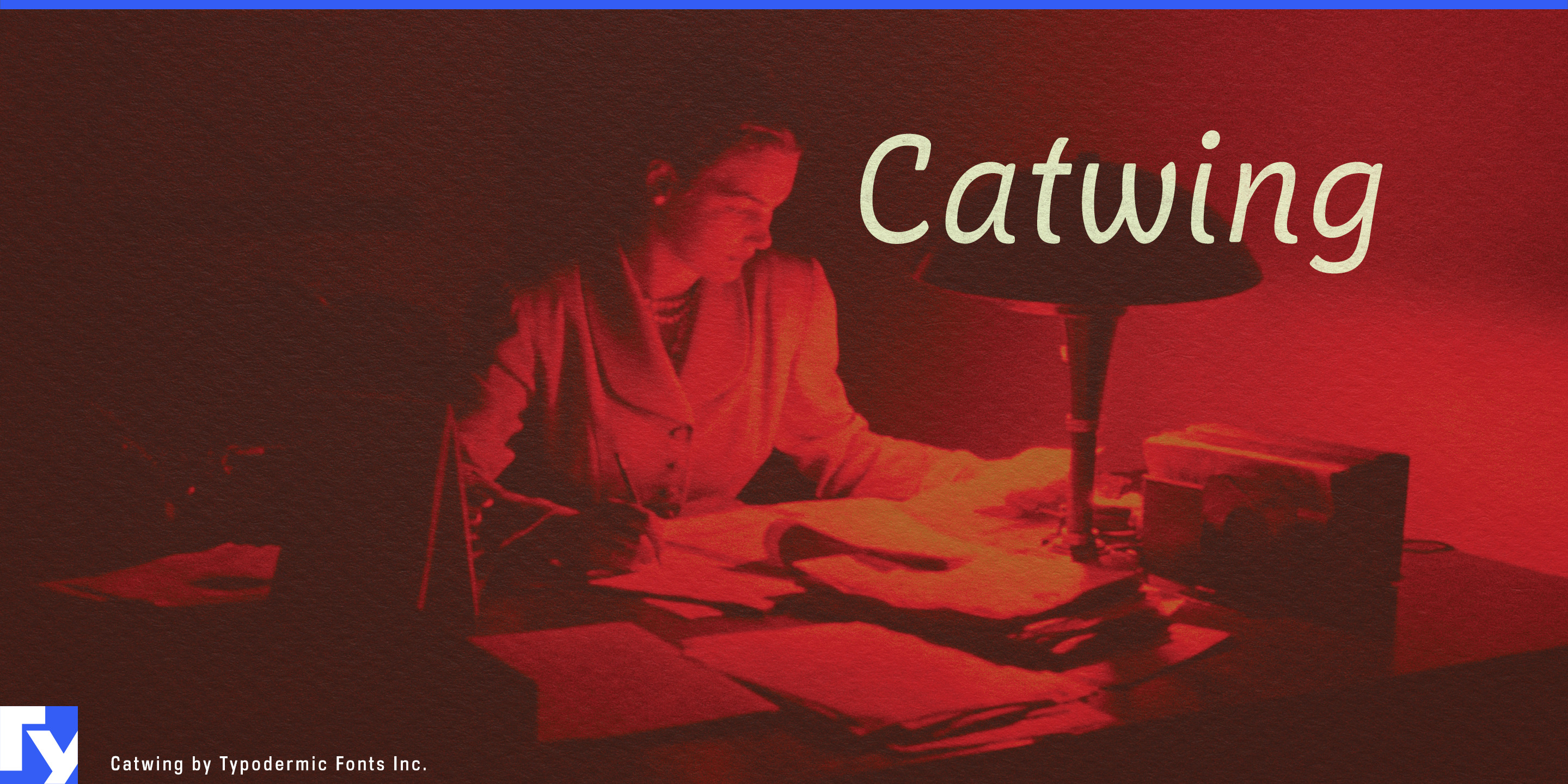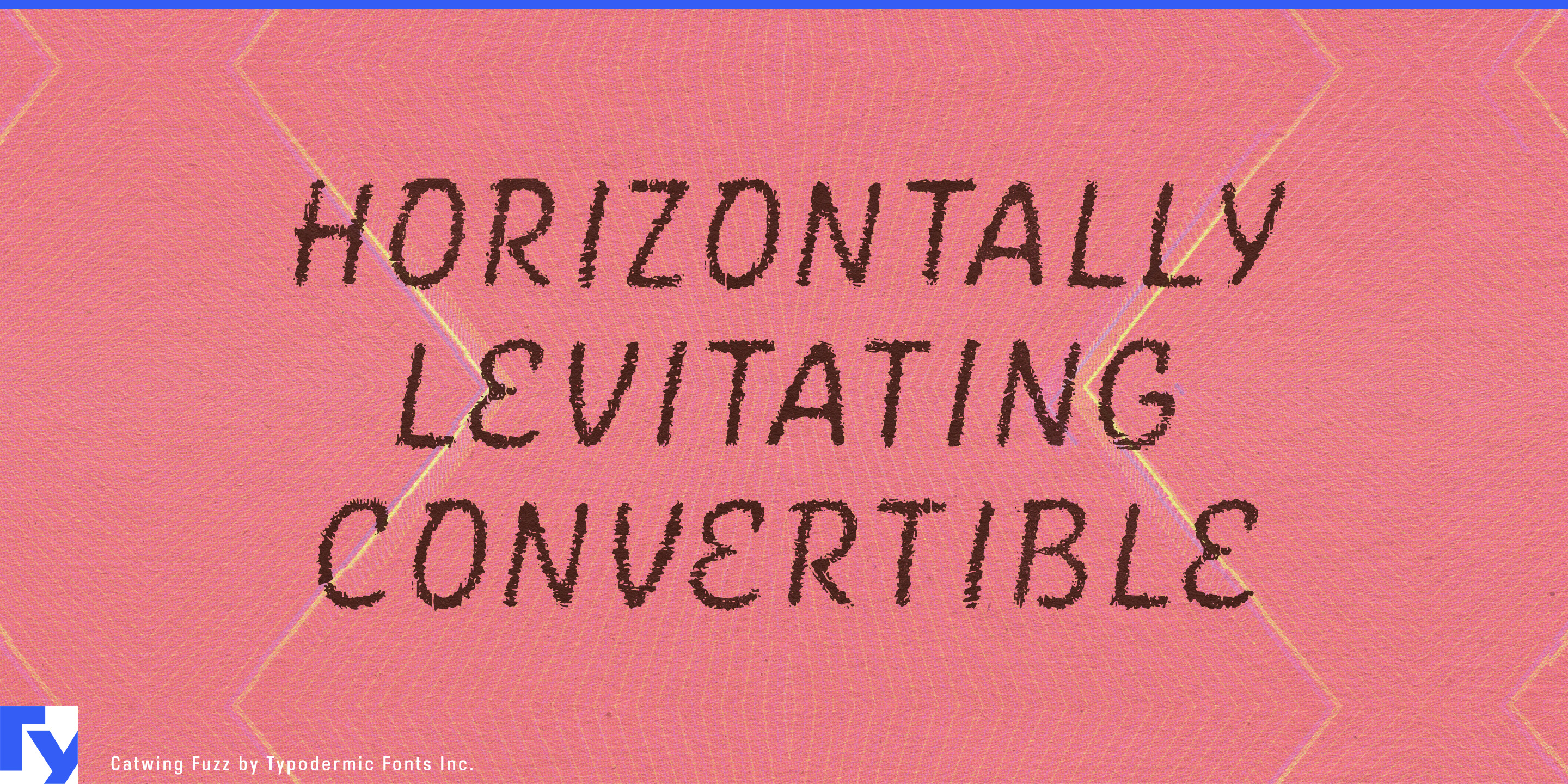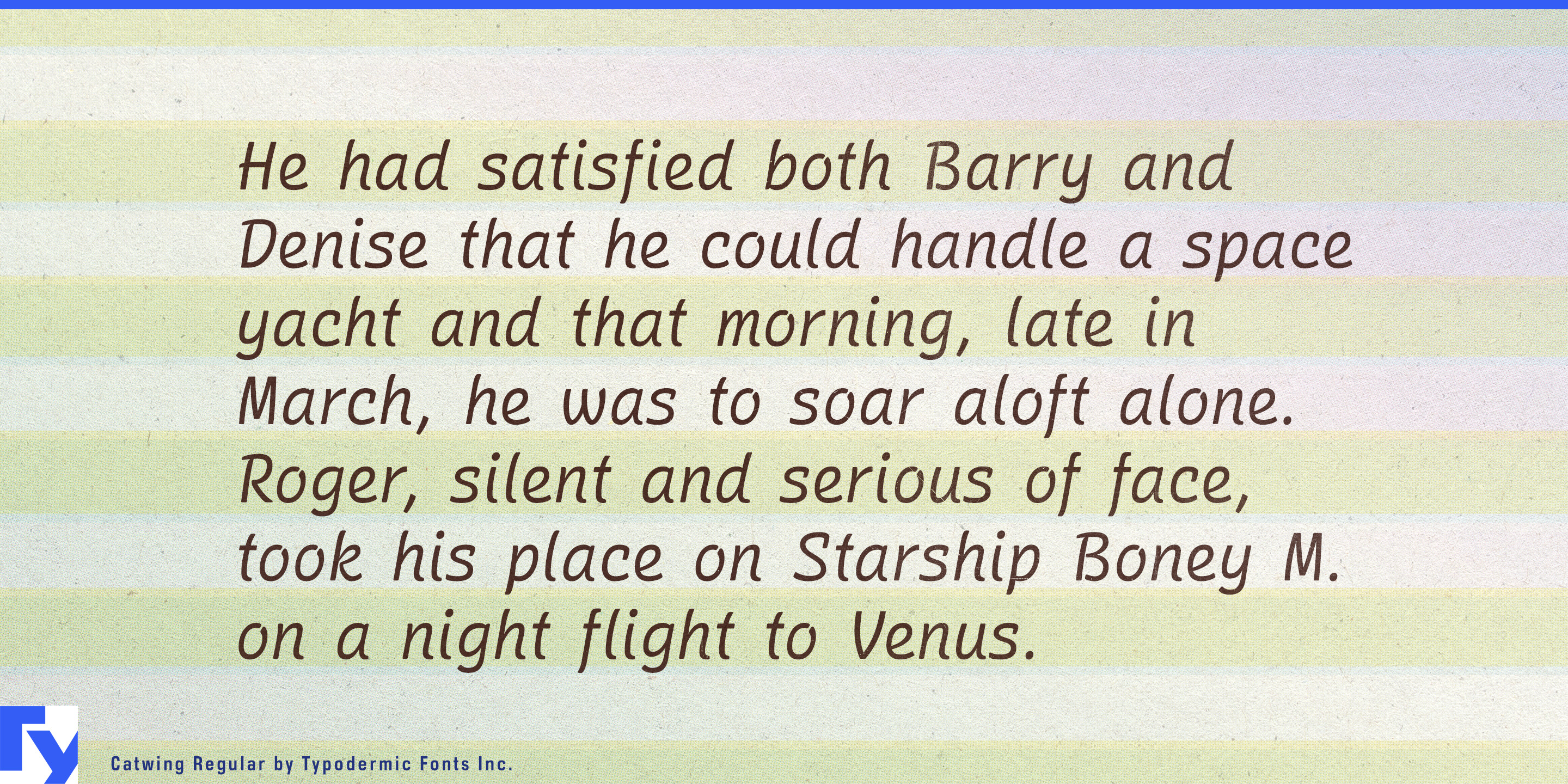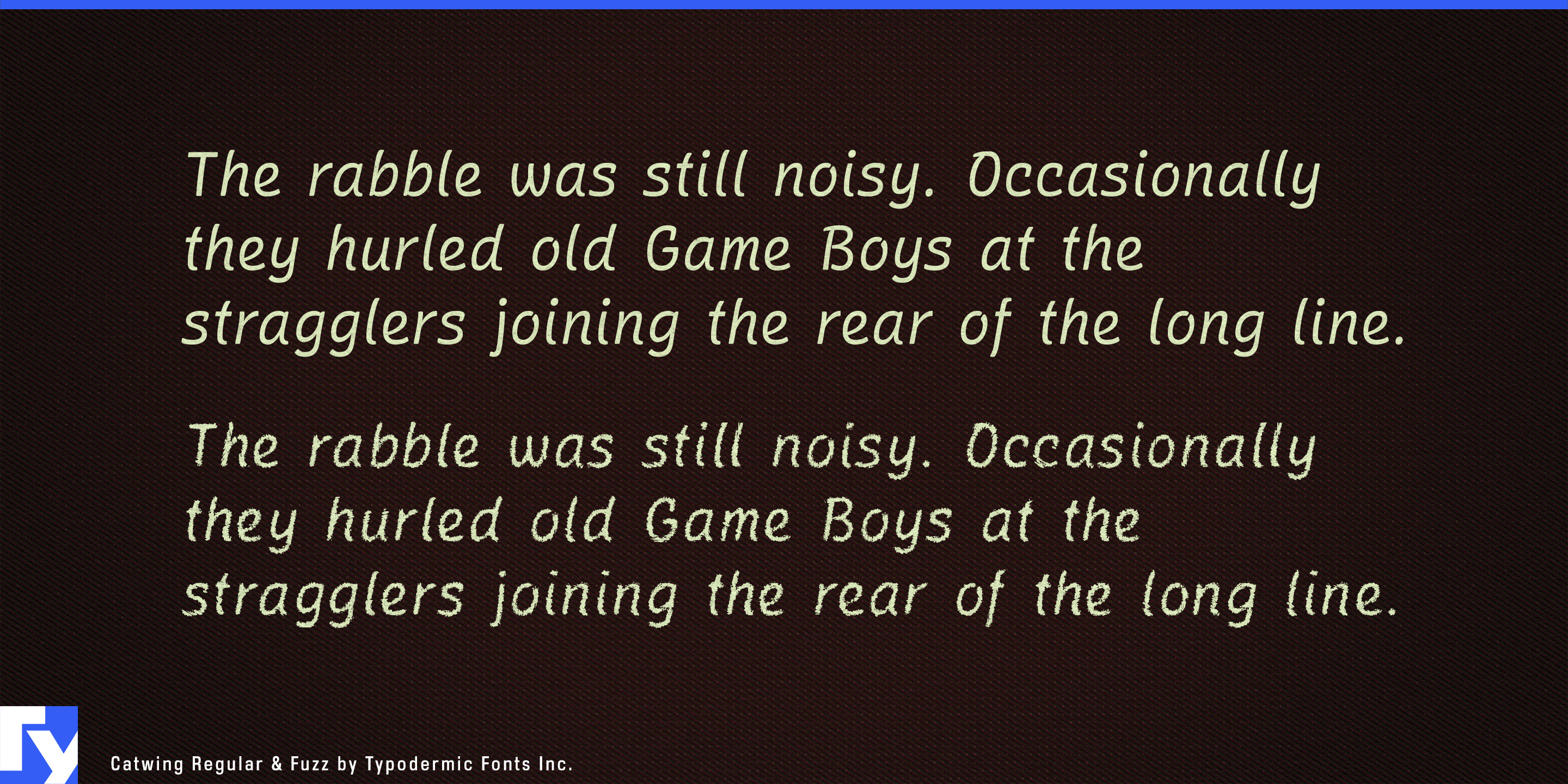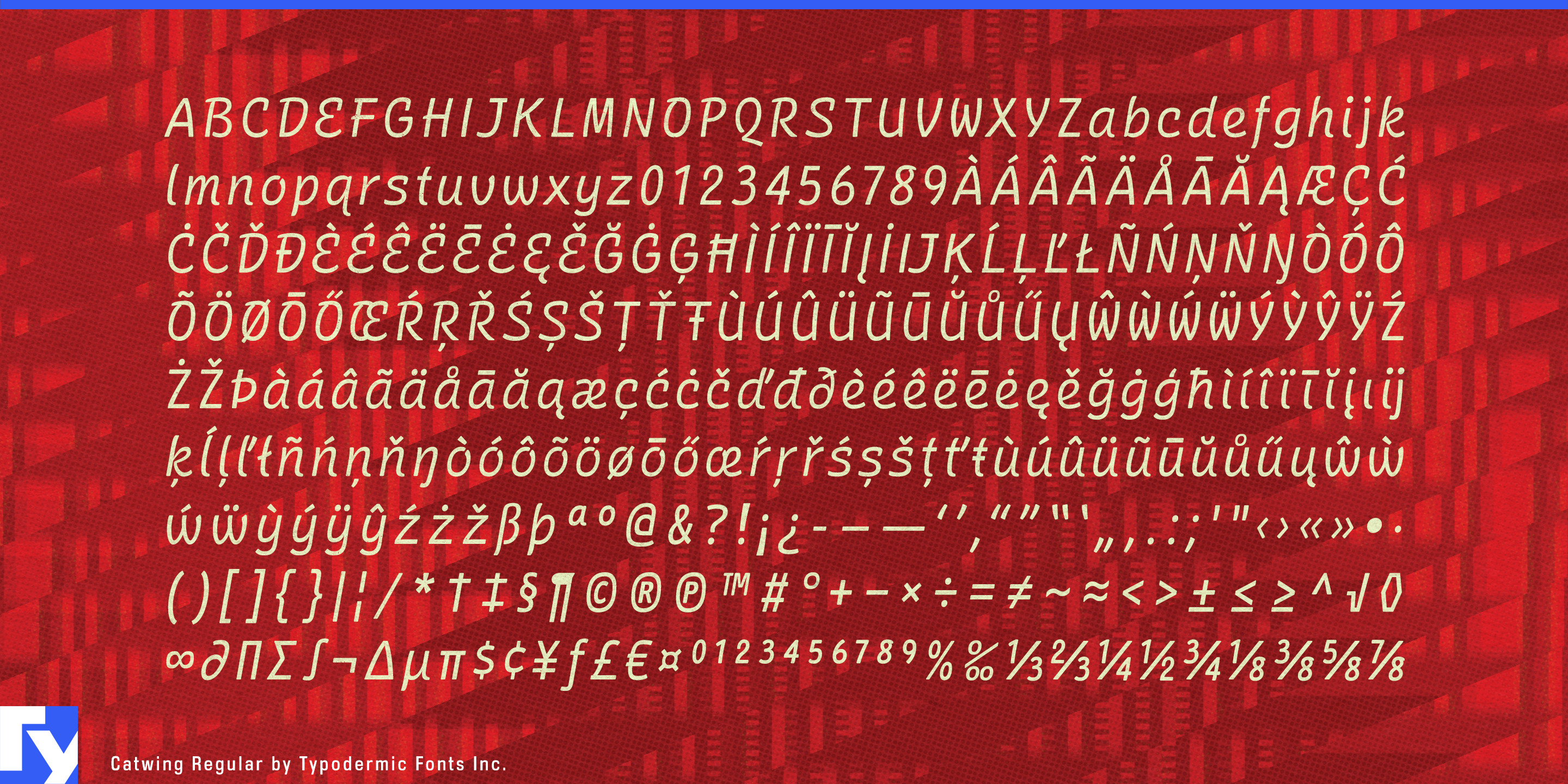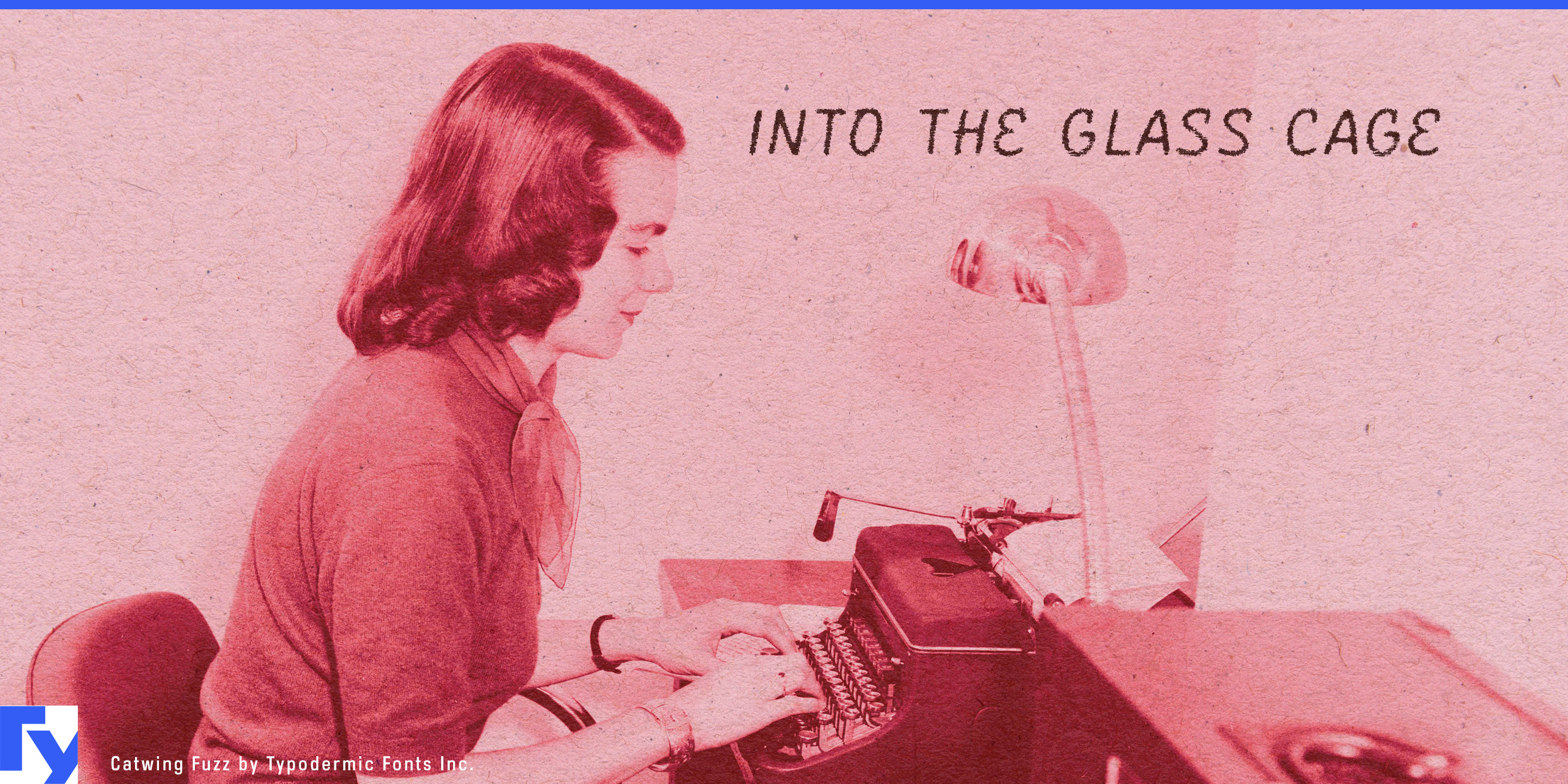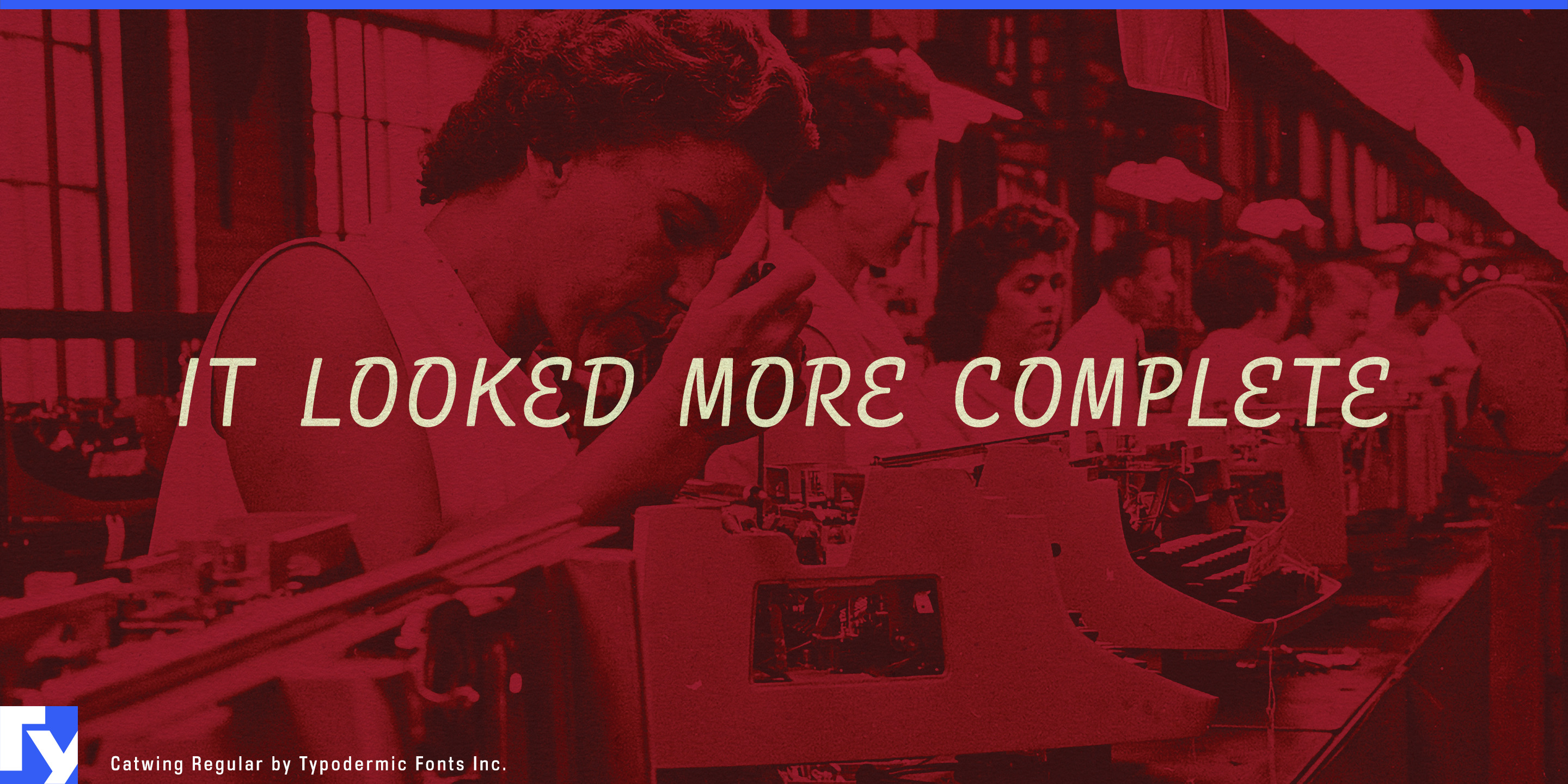
Catwing
Catwing isn’t your typical typewriter typeface. Where most script typewriter faces are locked into rigid monospacing, Catwing flows with proportional spacing, giving every letter the room it needs. Real monospaced fonts have their place—great for coding, technical layouts, or perfect period recreations—but they can be awkward for everyday design, forcing unnatural gaps between narrow letters and cramping wider ones. Catwing solves that problem, keeping the charm of a vintage typewriter while delivering the smooth rhythm and readability of a modern script.
Its inspiration comes from the golden era of script typewriters, with letterforms refined for elegance in all caps and mixed case alike. The clean Regular style offers crisp legibility for upscale branding, packaging, and editorial work. For projects that call for more analog soul, Catwing Fuzz adds a textured, slightly worn imprint, complete with custom letter pair alternates that echo the subtle imperfections of real mechanical typing.
Whether you’re crafting period drama titles, designing a café menu with a human touch, or creating heritage branding with a fresh spin, Catwing bridges past and present. It brings the deliberate, tactile personality of typewritten script into the digital age—without the spacing headaches of a true monospaced font.
Catwing isn’t just a retro nod; it’s a designer’s tool built for today’s creative workflows, where style and usability have to work hand in hand.